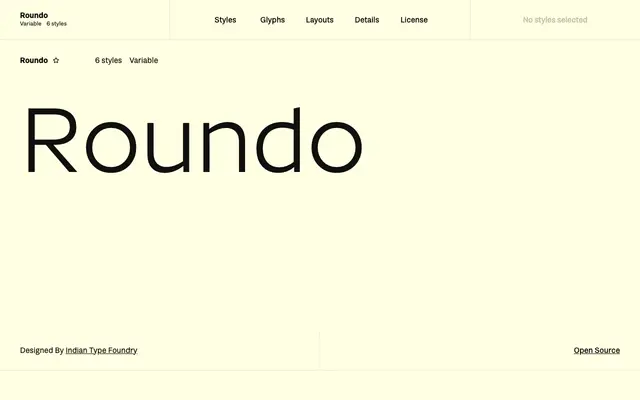
Roundo
A geometric sans with a top-heavy reverse contrast and a lowercase that blends geometric and humanist features, designed at the Indian Type Foundry for headline and screen use.
Designed by Shiva Nallaperumal at the Indian Type Foundry and first published in 2016, Roundo pairs more purely geometric capitals with a lowercase that mixes geometric and humanist sans conventions. The reverse contrast gives characters a top-heavy quality, while diagonal shears on ascenders and round dots throughout add energy. Six static weights from Extra Light to Bold are accompanied by a variable font axis, with each style covering 408 glyphs.
Described explicitly as a geometric sans serif with humanist influences in the lowercase. Capital letters are more purely geometric while lowercase blends geometric and humanist features, placing it firmly in the geometric sans subcategory.